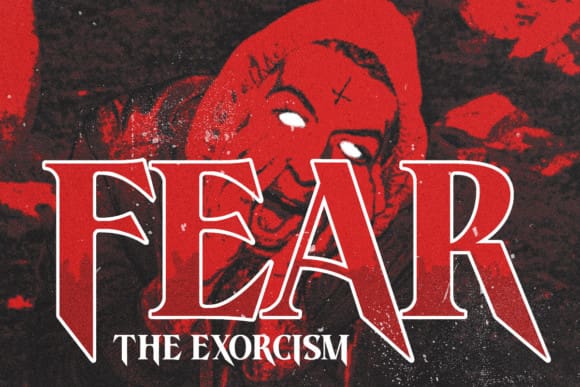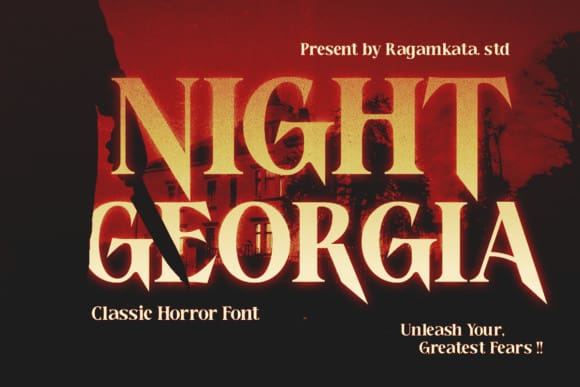
Night Georgia Font
Night Georgia Font, a spine-chilling display font that blends classic horror with vintage elegance. Inspired by 70s horror movie posters, this font features sharp, spiky serifs and an elongated condensed design, perfect for evoking suspense and nostalgia.
Night Georgia comes in two styles: Regular and Outline, offering versatility for your creative needs. Ideal for Halloween projects, movie titles, book covers, and posters, it brings the thrilling allure of classic horror to any design, making your work stand out with eerie charm and timeless style.